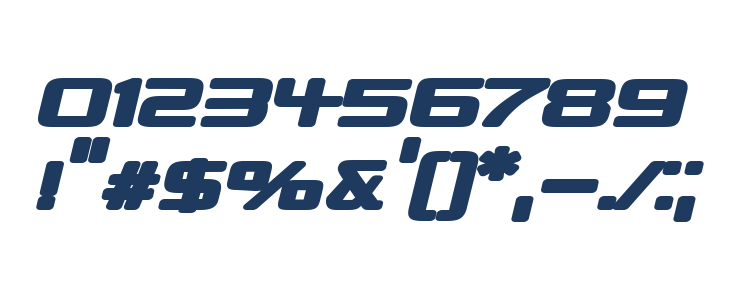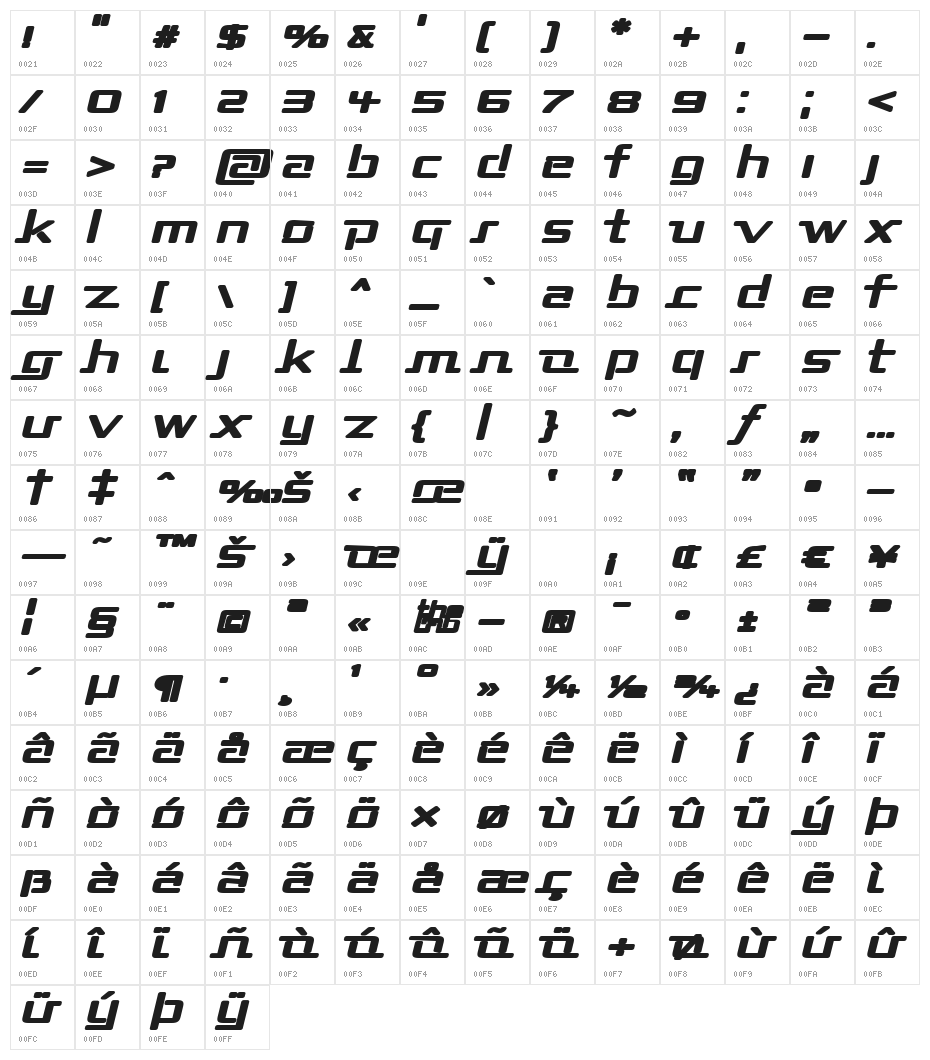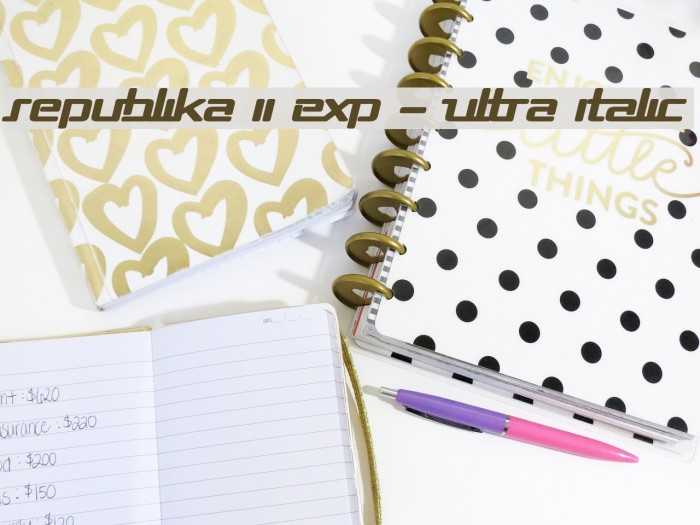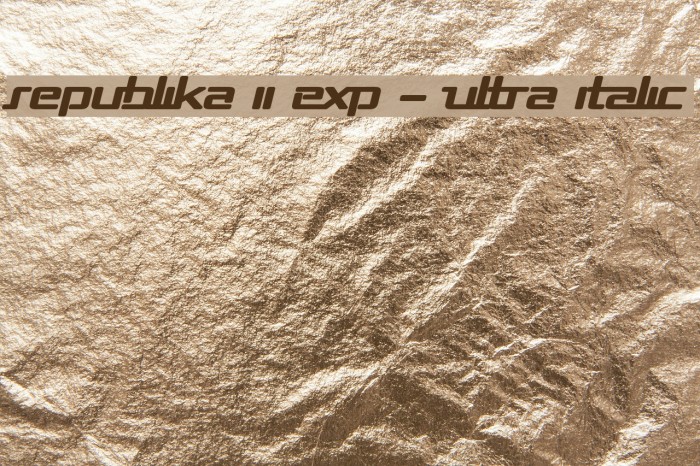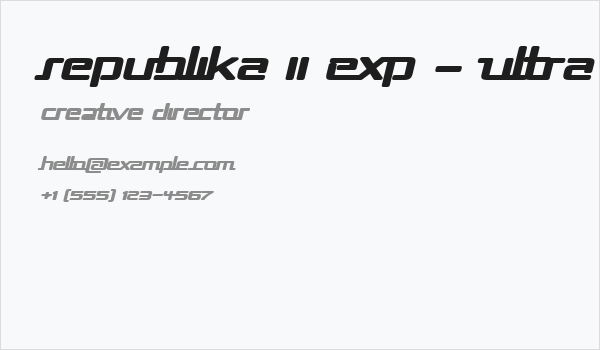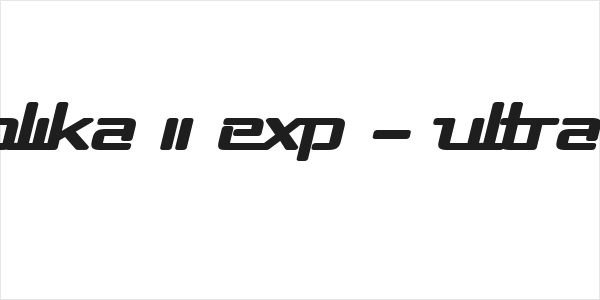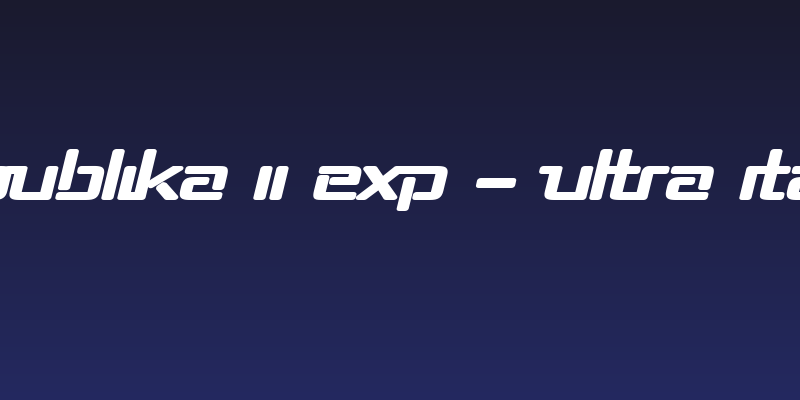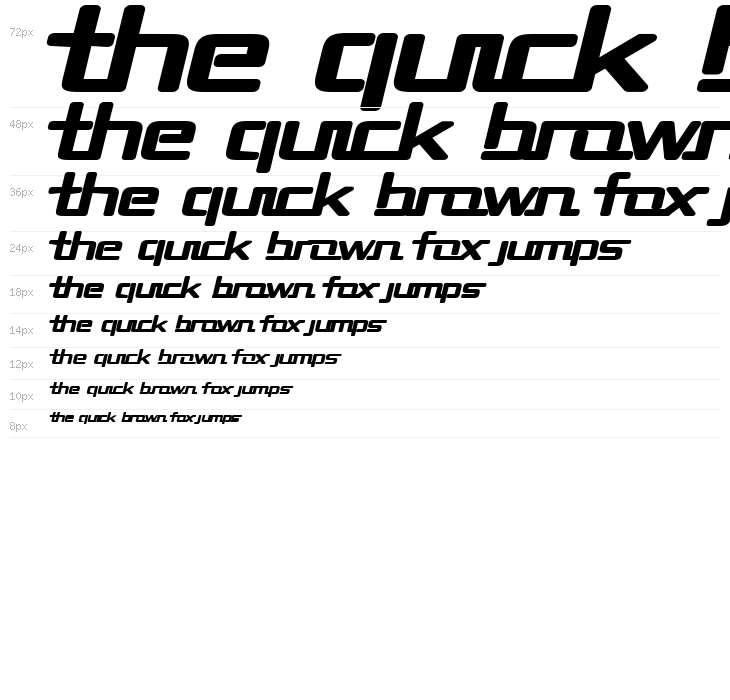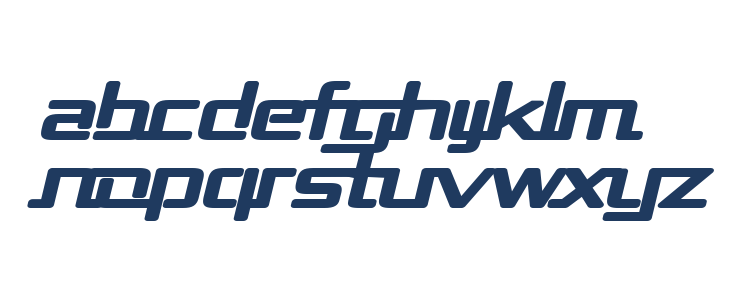
Republika II Exp - Ultra Italic Font
Republika II Exp - Ultra Italic Description
This font features a bold and dynamic design, characterized by its italicized and expanded letterforms. The strokes are thick and consistent, giving it a strong presence. The characters have a futuristic and sporty feel, with smooth curves and sharp angles that create a sense of motion and energy. The uppercase and lowercase letters maintain a uniform style, while the numerals and special characters are designed to complement the overall aesthetic. This font is well-suited for projects that require a modern and impactful look.
| Proposed Projects | Ideal for sports branding, automotive designs, tech-related projects, and dynamic advertising. |